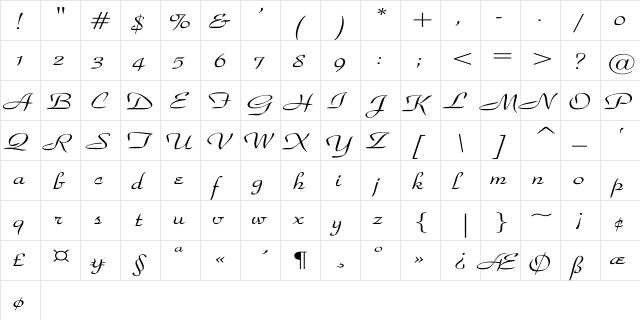
Park-Avenue-Ro Wd Regular
Park-Avenue-Ro Wd is a composed and adaptable typeface that performs quietly and consistently across a wide range of design contexts.